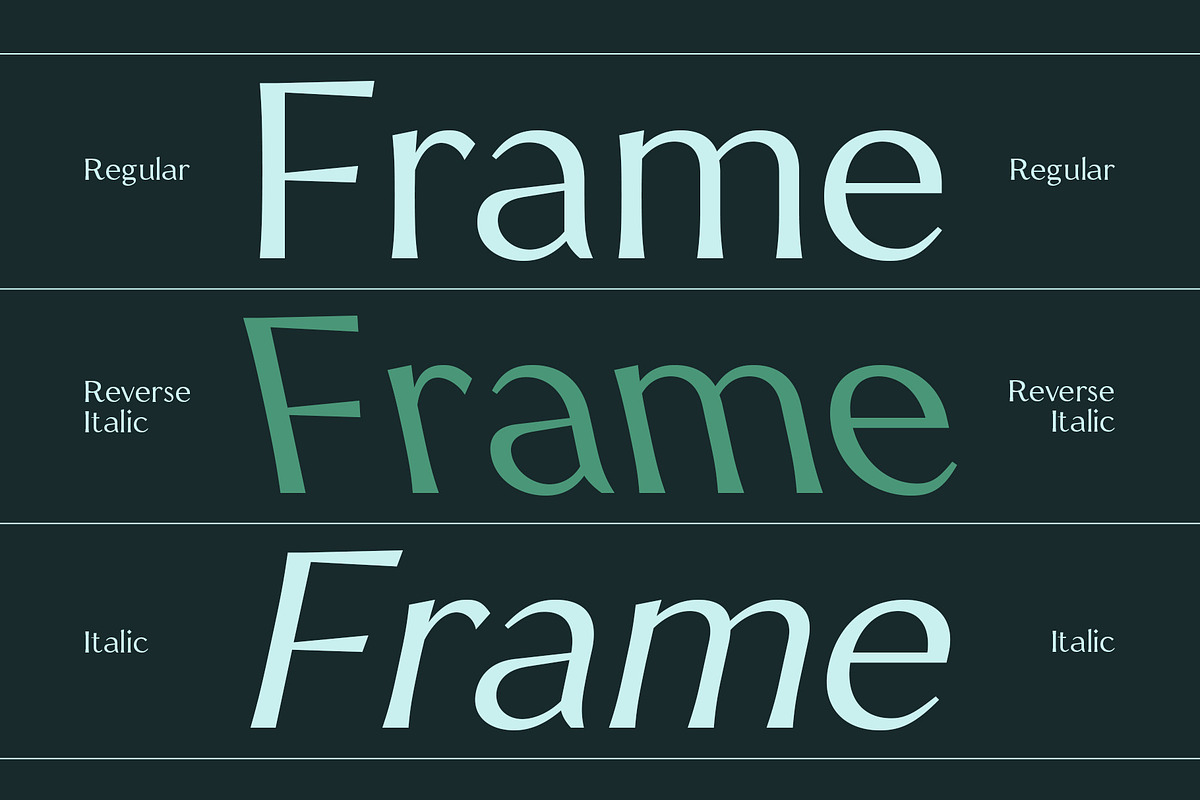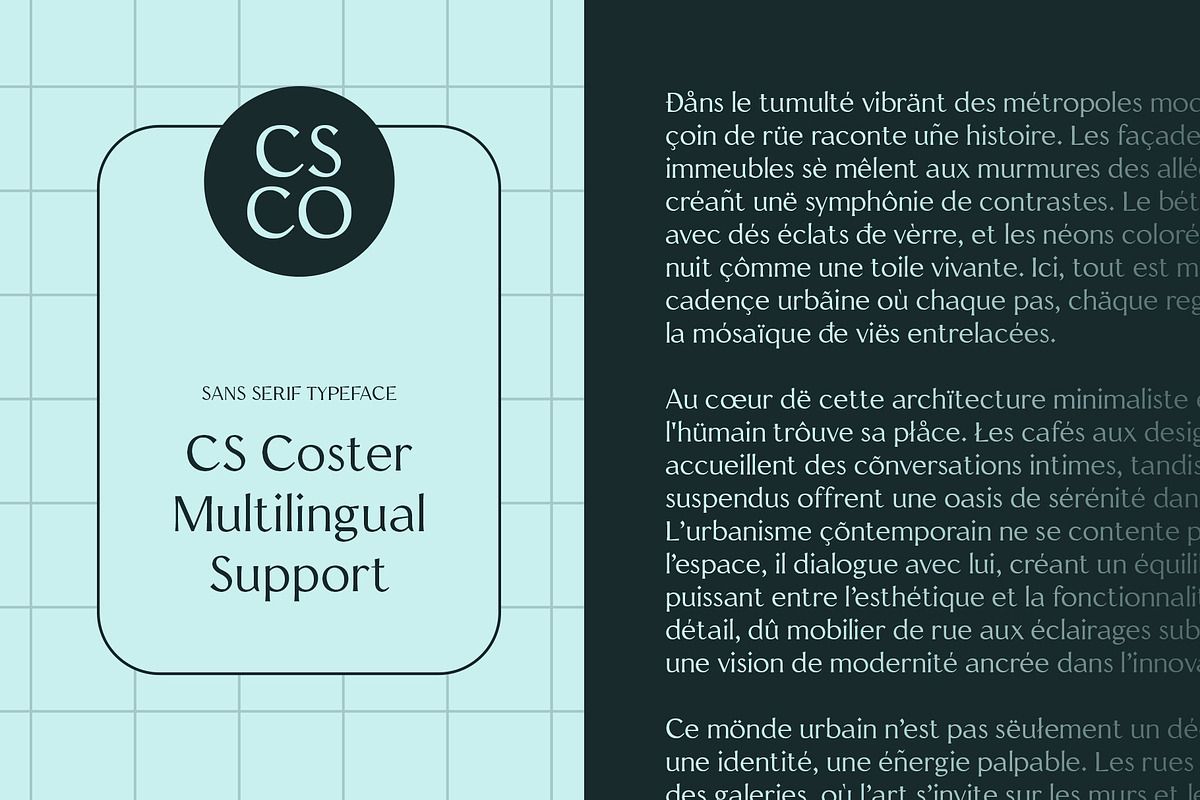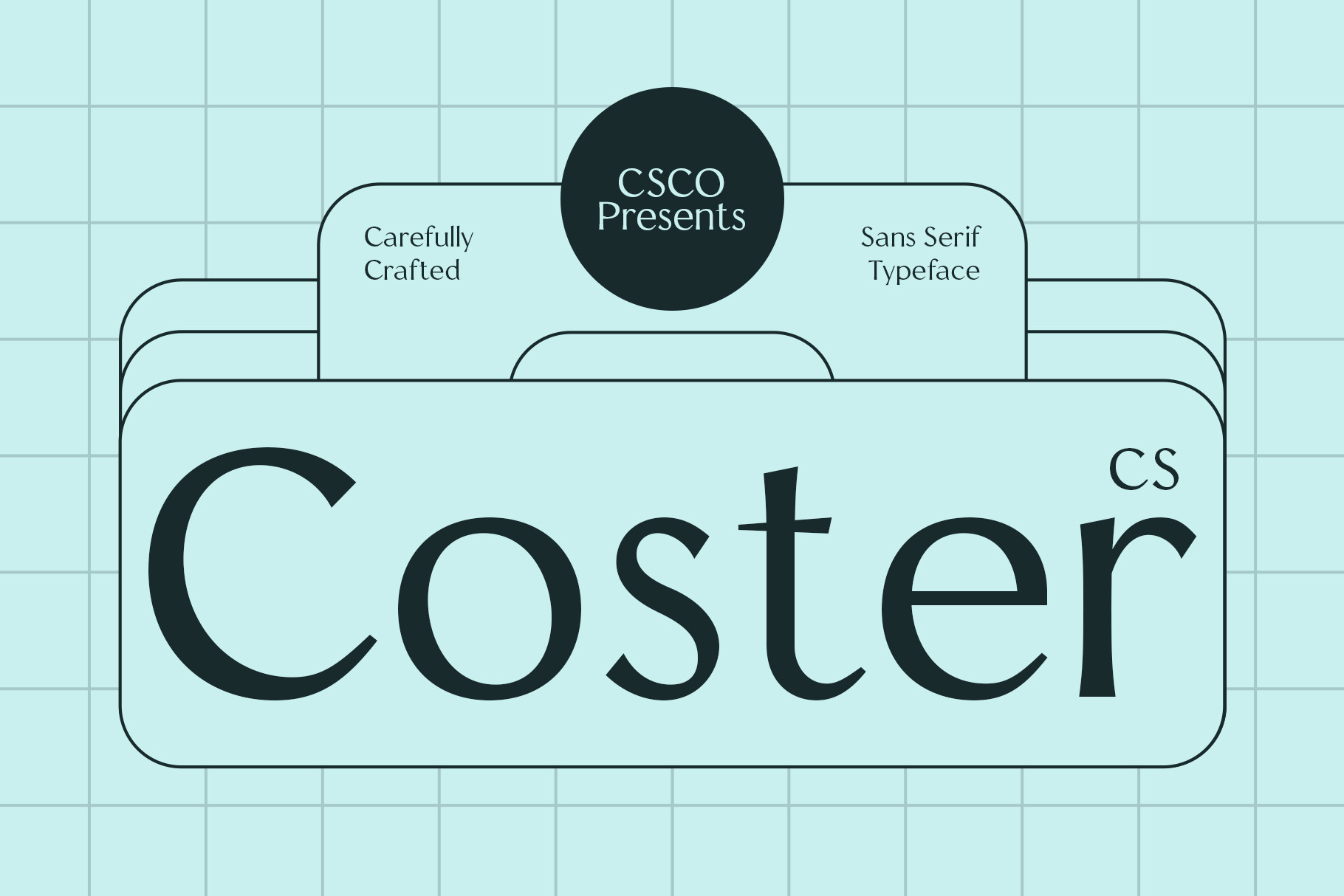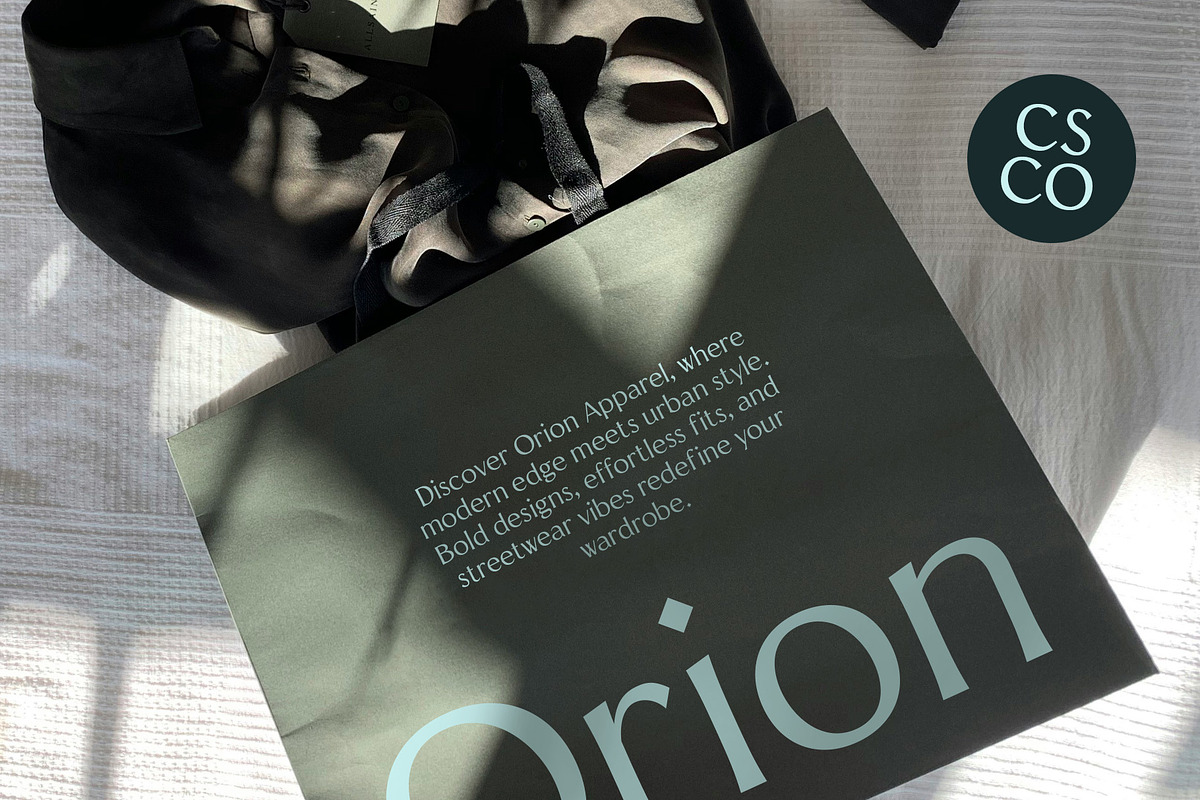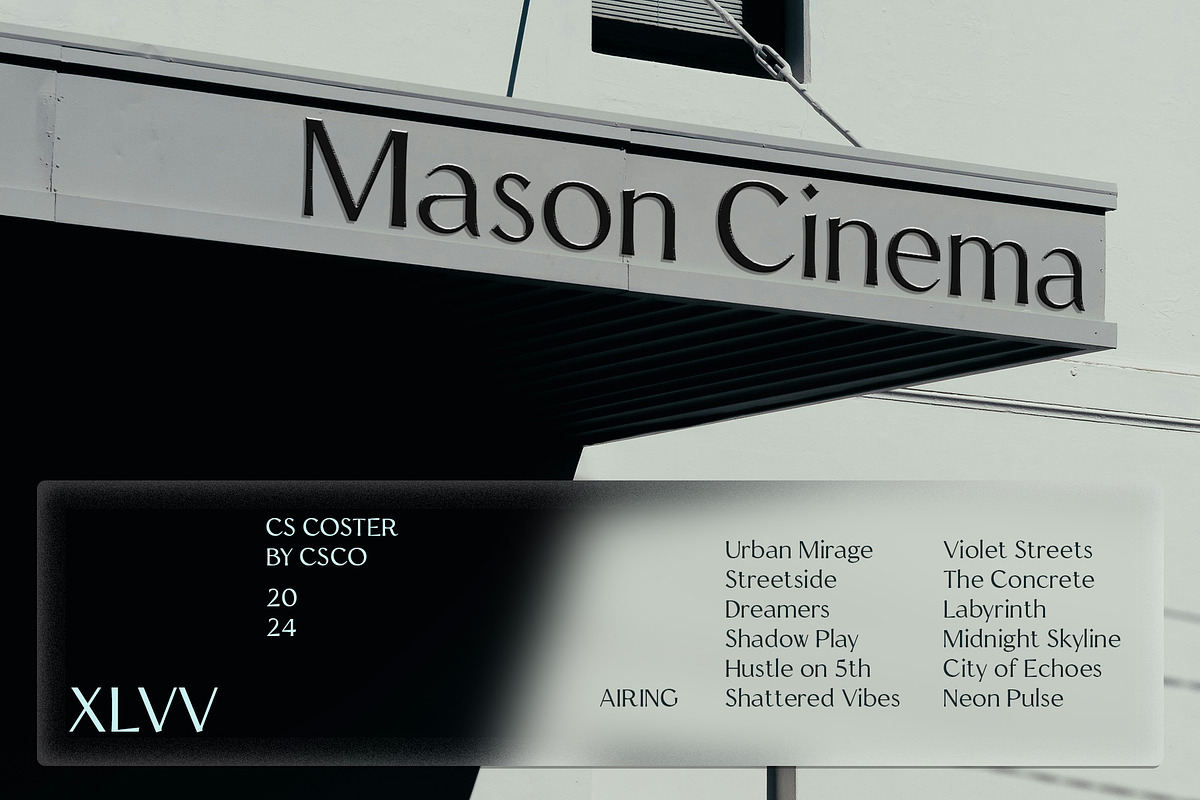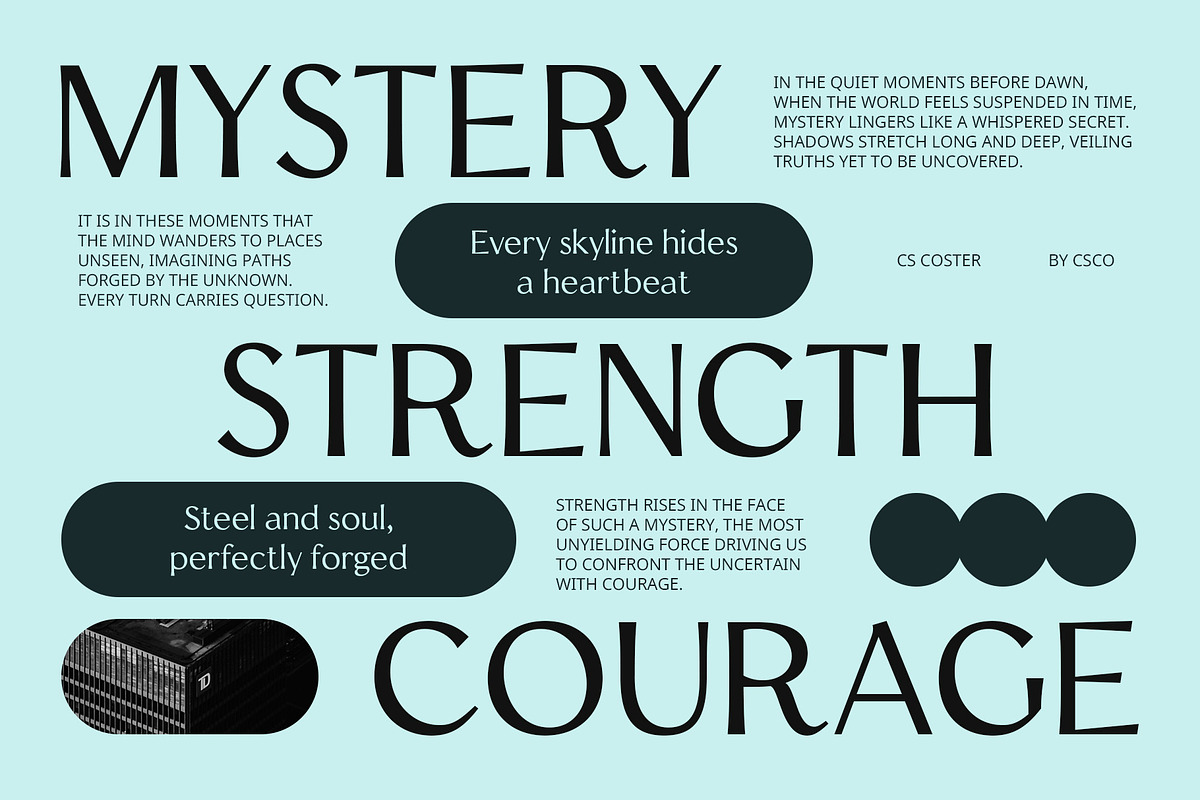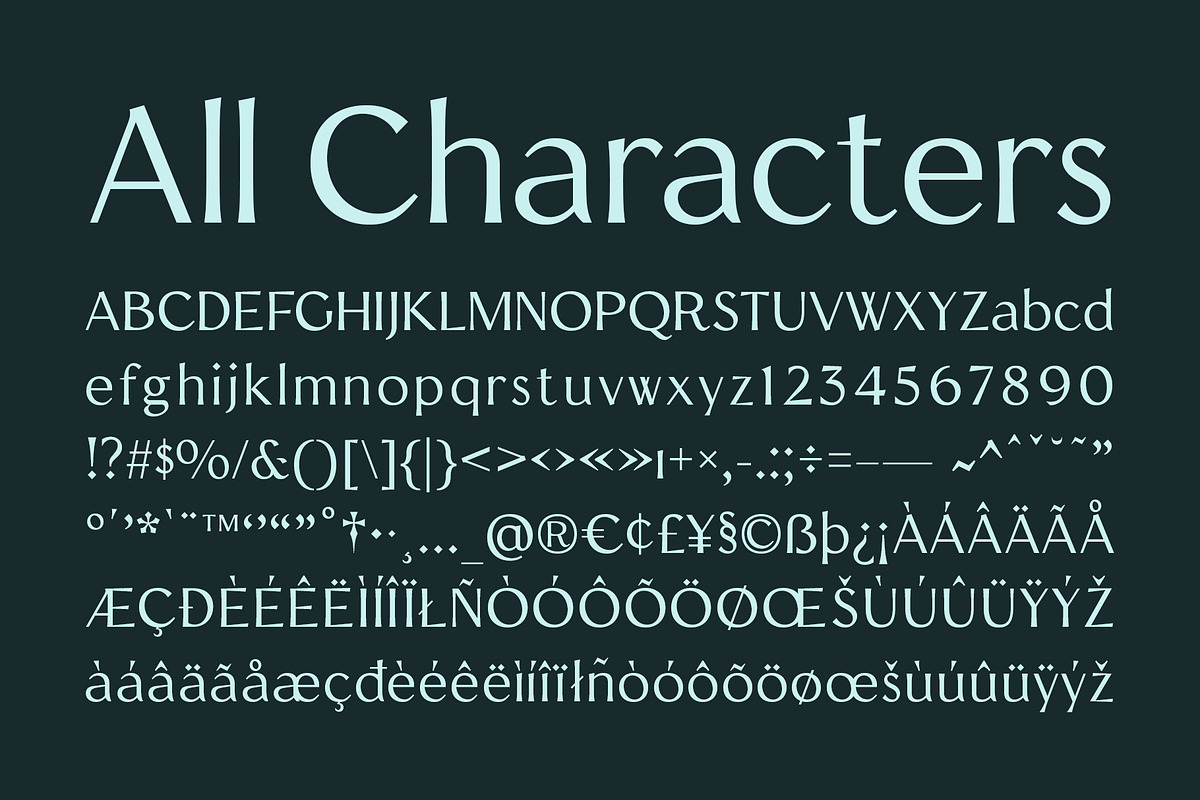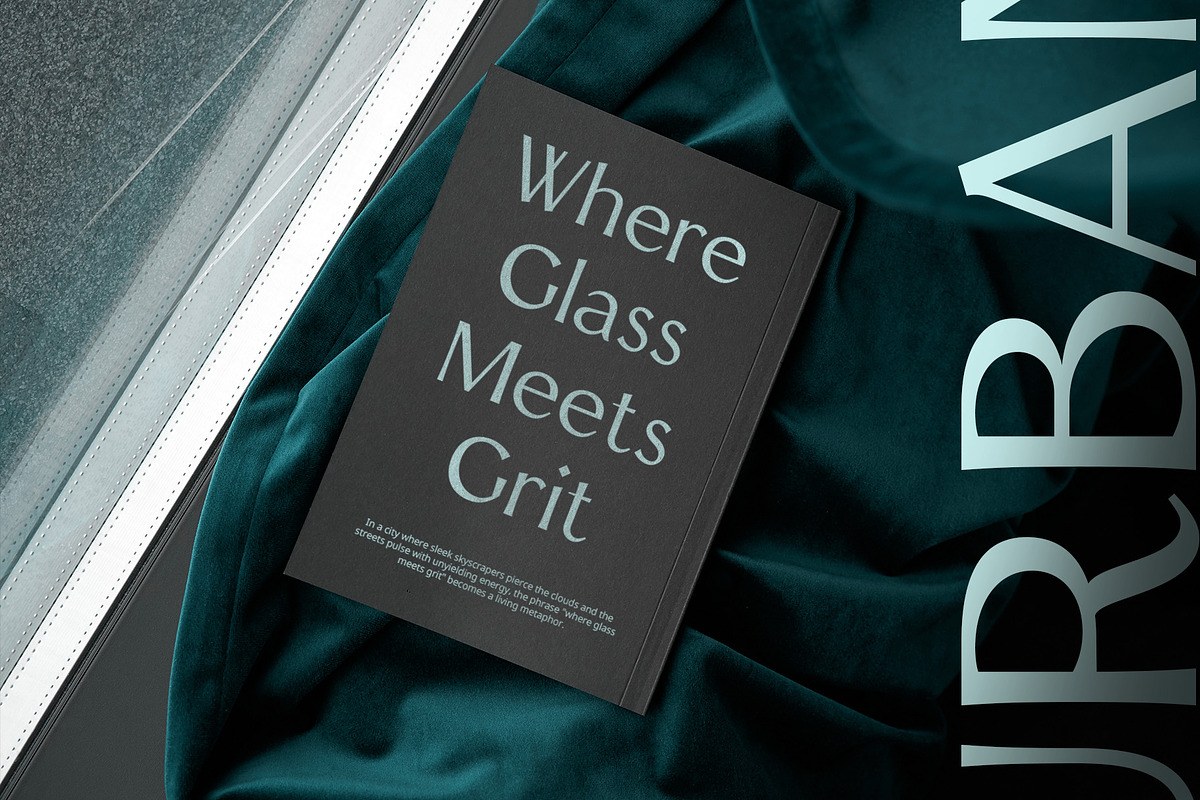
CS Coster – Contemporary Font
CS Coster Font: Contemporary Sans-Serif Elegance
Sleek, Professional, and Modern CS Coster is a modern sans-serif font with a contemporary design and an elegant feel, featuring clean lines, balanced proportions, and a minimalist structure. Its refined and polished letterforms create a sense of sophistication, making it the ideal choice for projects that require professionalism and modernity. The font’s simplicity combined with its modern character offers both readability and elegance, making it versatile for various high-end design applications.
Perfect for Corporate Branding and Professional Projects With its sleek lines and minimalist structure, CS Coster is perfect for use in corporate branding, presentations, websites, and marketing materials that need to communicate professionalism and luxury. The font’s clean and balanced design exudes an air of modern sophistication, making it the ideal choice for businesses looking to project a polished and trustworthy identity. Whether used in logos, headlines, or body text, CS Coster ensures clarity and elegance in every application.
Sophisticated and Readable CS Coster’s carefully crafted proportions ensure excellent legibility, while its modern design adds a sense of luxury and authority. It’s an excellent font choice for professional documents or marketing content, where readability is paramount but a sense of high-end appeal is also desired. Whether it’s used for corporate presentations or premium websites, CS Coster strikes the perfect balance between functionality and style.
- CS Coster Regular
- CS Coster Italic
- CS Coster Reverse Italic